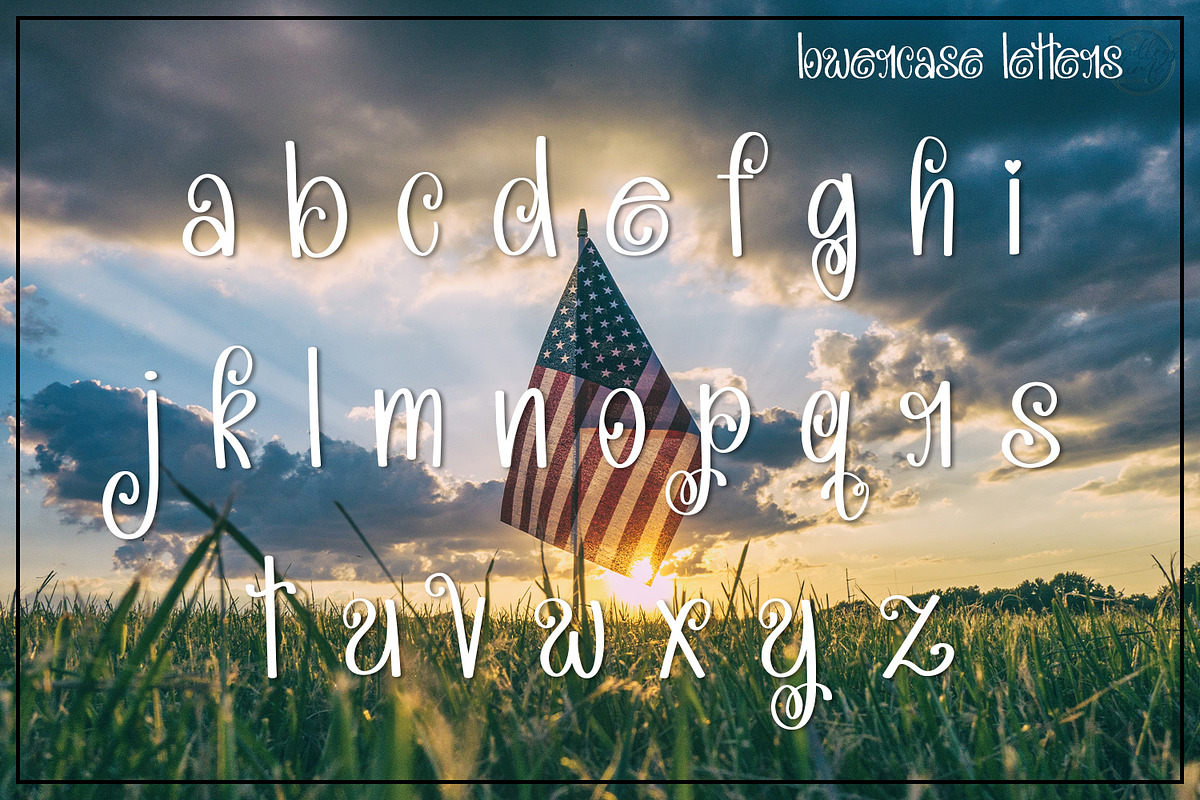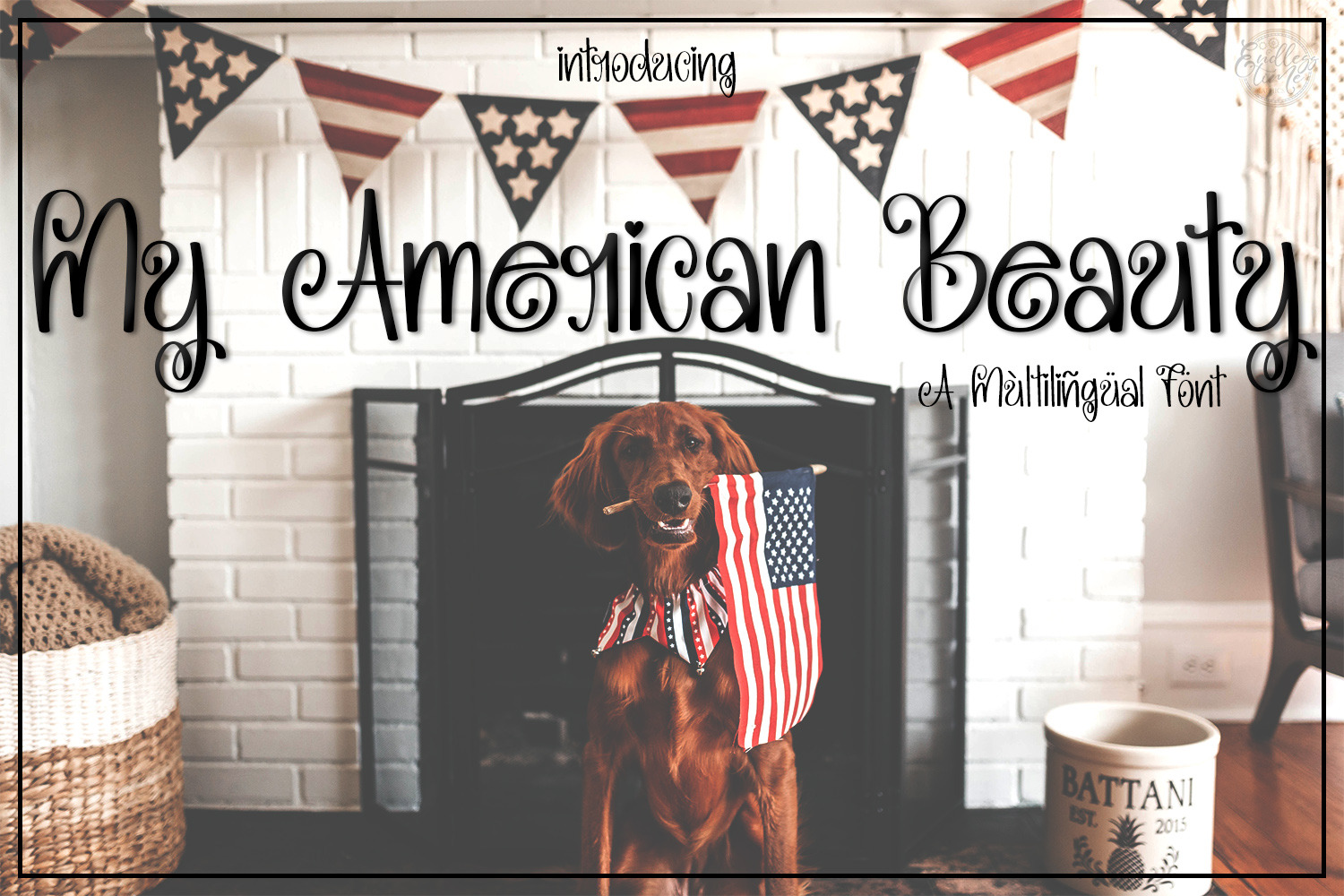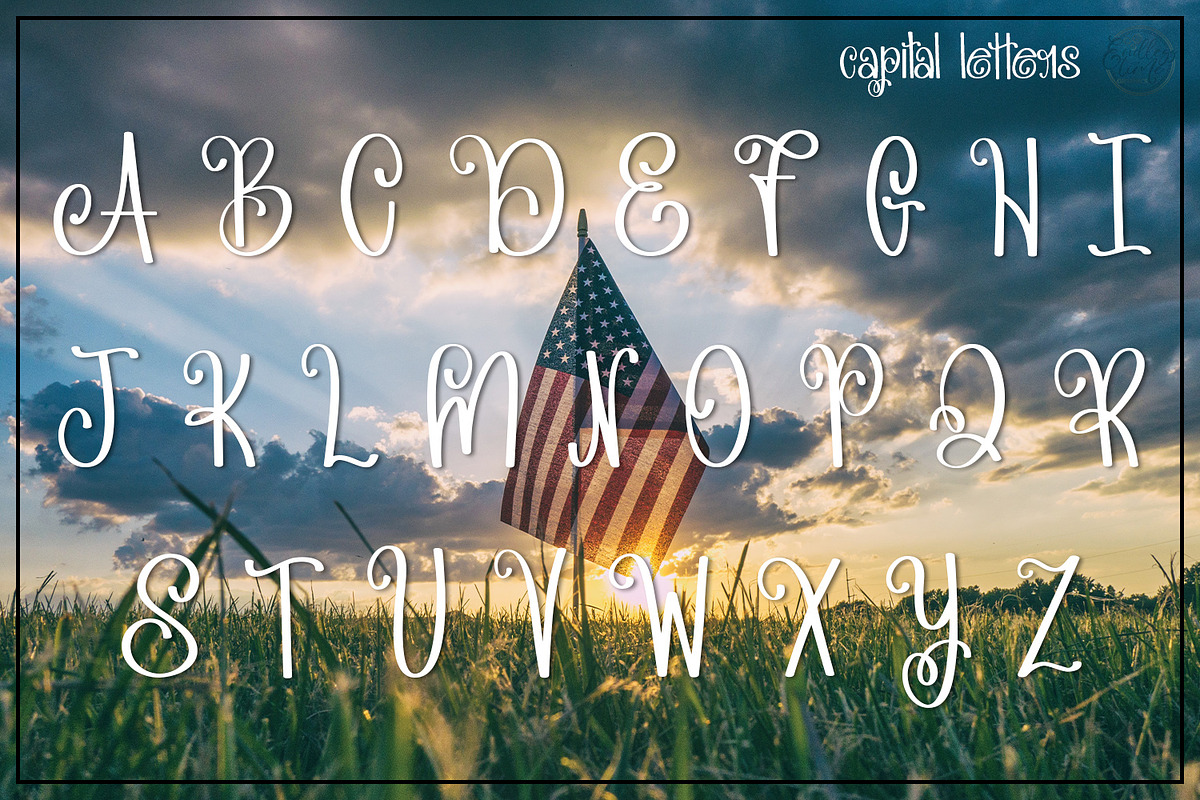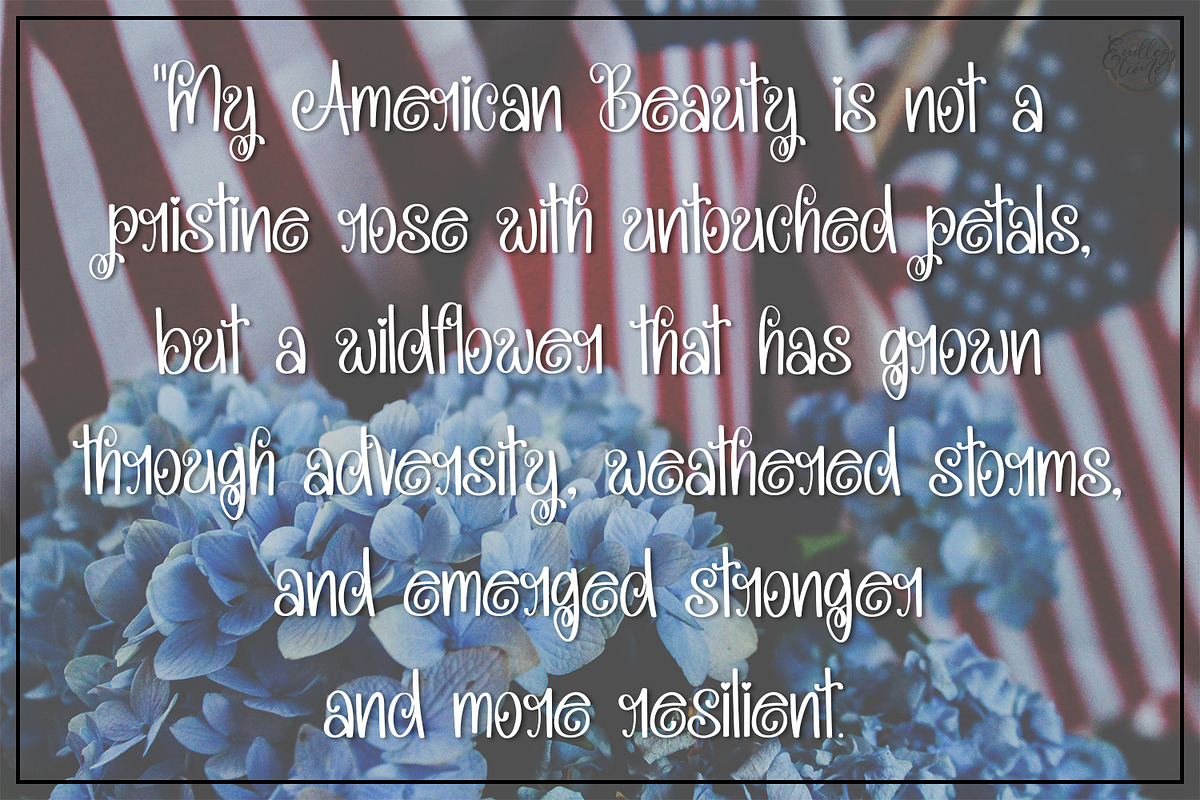
My American Beauty Multilingual Font
If you loved my font Iced Caramel Macchiato - you're sure to love my newest font, My American Beauty. While there are similarities in the fonts, you will find they are completely different - and each beautiful in their own way.
The origin story of this font is pretty cool - it was lettered while I was flying back home to the US from London!!
The title reflects all of my favorite characters within the font - specifically the random cursive 'r' - and the 'u' and 'y'
Like all of my fonts, My American Beauty is hand lettered by me, AND is multi-lingual and supports all Western European Languages.